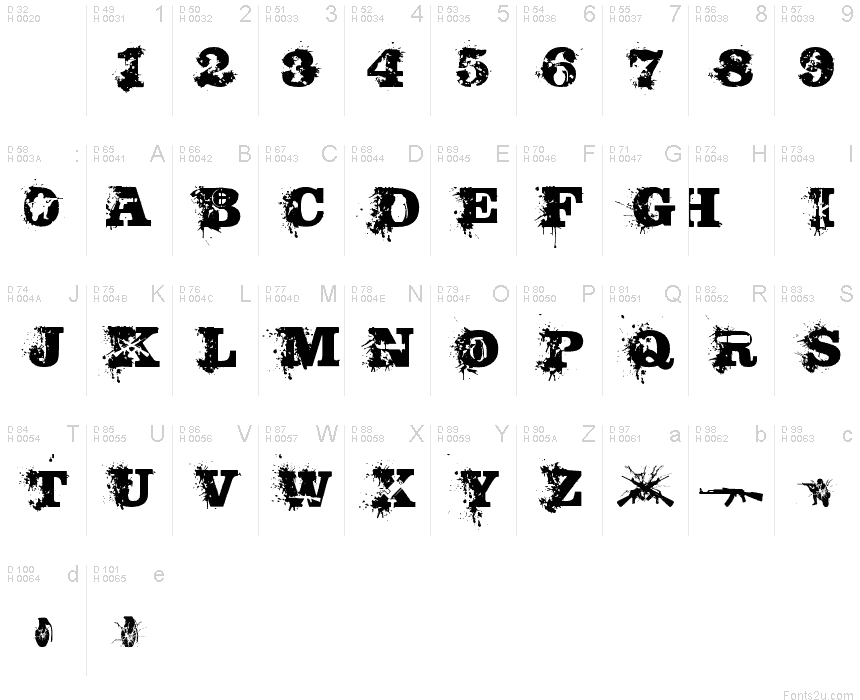
Policia Corrupta
Policia Corrupta by Gerzan Borge of Triton Company is a free eroded display font with broad slab-serif capitals and forceful, poster-like weight. Ink splatters, drips, and scraped gaps break across the letters.
Its damaged print texture connects protest posters and punk album packaging, while the commanding western-style forms also suit action-game graphics. In publishing, it makes an effective cover treatment for crime fiction or investigative features, where the splashes and fractured surfaces can echo photographs of street art, torn paper, or messy evidence.